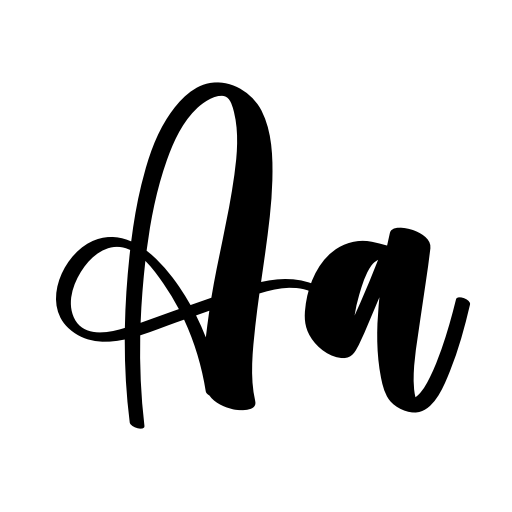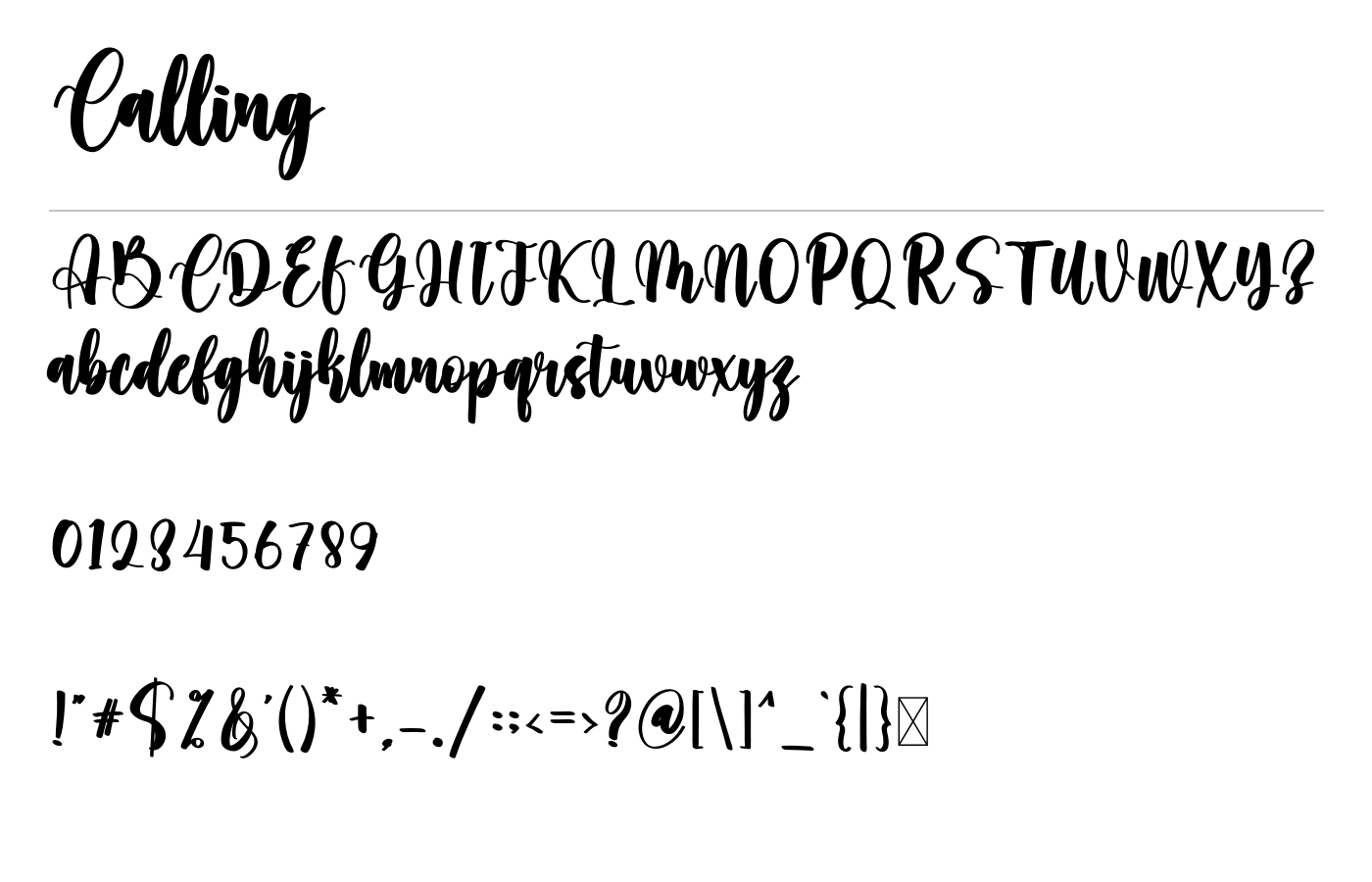
Calling Font is a lively and expressive script typeface with bold, brush-like strokes and a playful, handwritten feel. Its flowing letterforms and smooth curves make it perfect for adding a personal, creative touch to branding, invitations, and headlines that need a friendly yet stylish vibe. This font works beautifully in designs seeking warmth and personality, especially in fashion, lifestyle, and creative projects.
Calling Font
About Calling Font